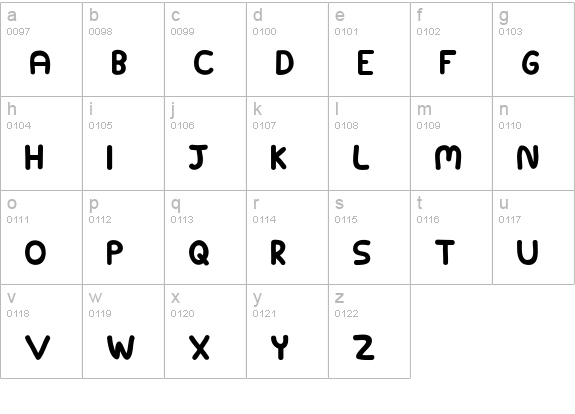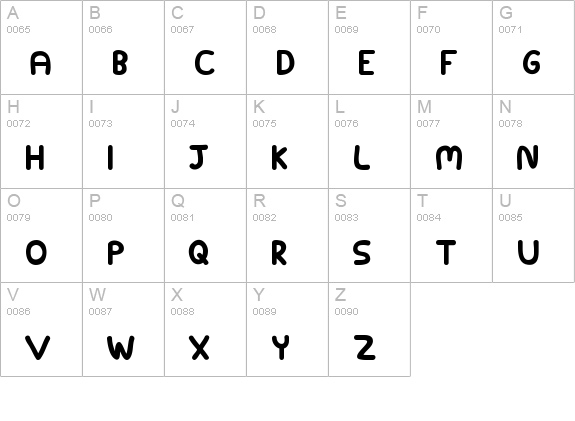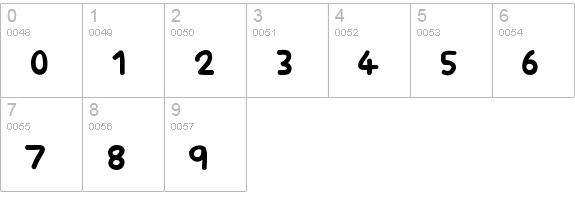
Introducing Babylove, a delightful and whimsical font that will add a touch of playfulness to any project. This charming typeface is perfect for capturing the innocence and joy of childhood, making it ideal for baby announcements, birthday invitations, and nursery decor. With its rounded edges and friendly curves, Babylove exudes a sense of warmth and tenderness. Each letter is carefully crafted to evoke a sense of comfort and familiarity, creating a welcoming atmosphere that will surely bring a smile to your face. But what truly sets Babylove apart is its accessibility. This beautiful font is not only visually pleasing, but it is also freely available to download at FontsMarket.com. Whether you're a professional designer or a doting parent looking to add a special touch to your little one's celebrations, Babylove is here to make your creative journey a little bit easier. So go ahead, embrace the sweetness and innocence of Babylove. Let its gentle strokes and playful curves inspire your imagination. Download this delightful font from FontsMarket.com today and bring a touch of magic to your next project. After all, who can resist the charm of something that is both beautiful and free?